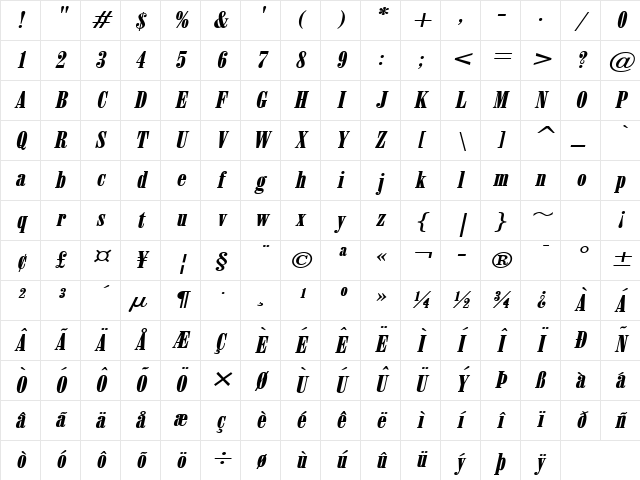
June 15 Wide BoldItalic
Design Context for June 15 Wide
June 15 Wide is a composed and adaptable typeface that performs quietly and consistently across a wide range of design contexts. The slanted form adds forward momentum and visual energy. Its bold stroke weight gives it real presence on the page.
Pro Tip: Use June 15 Wide for emphasis, pull quotes, and subheadings where its slanted energy can add rhythm to the layout.